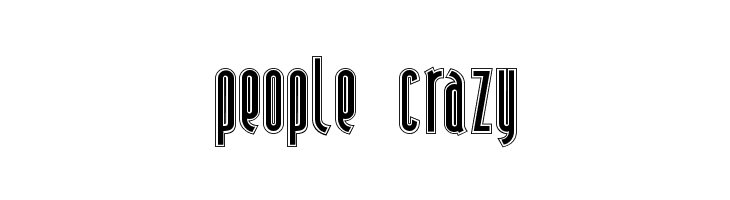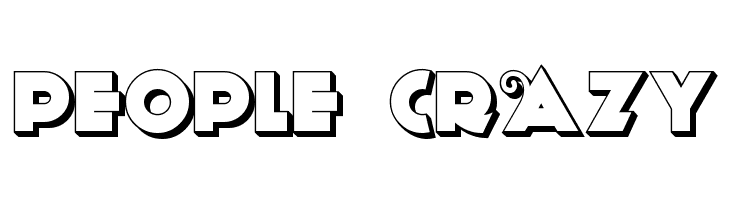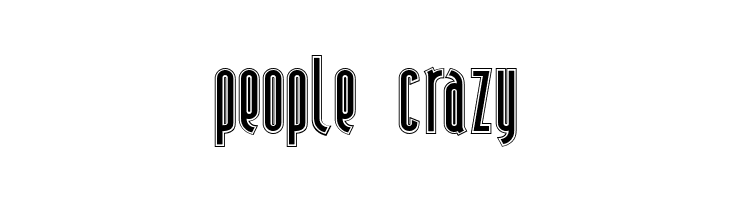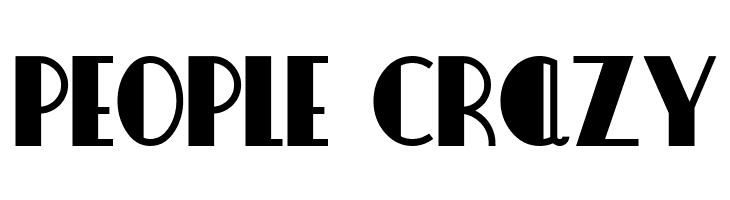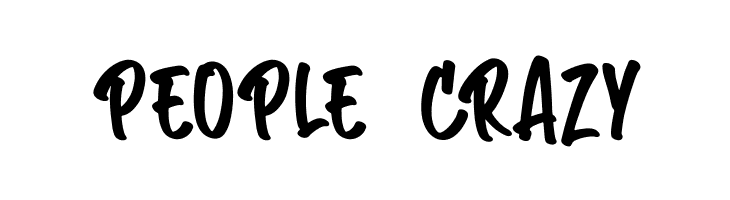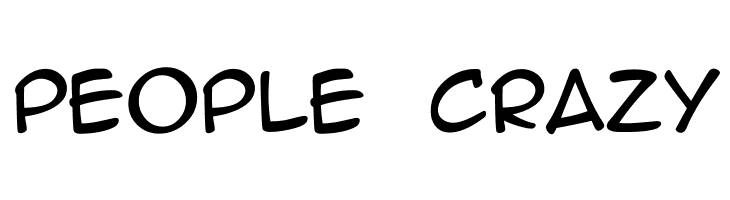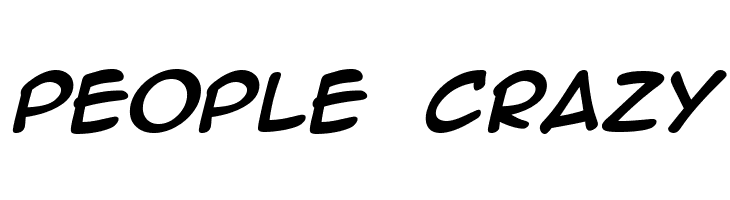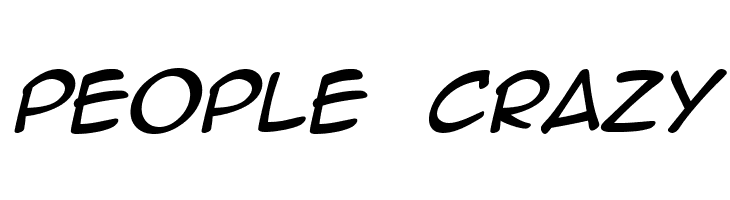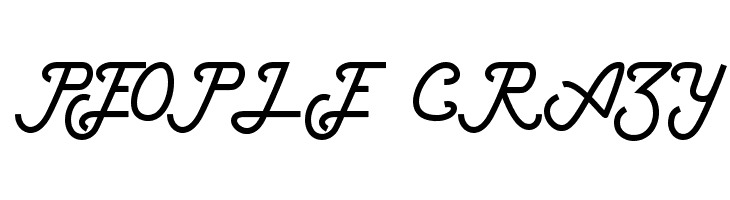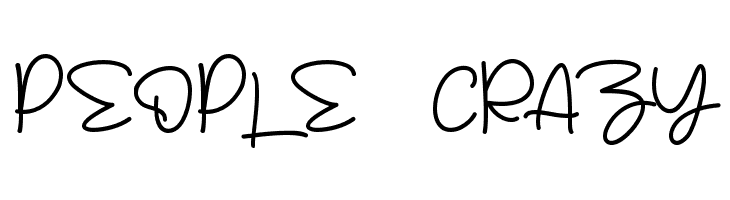
• Anagram Shadow NF
A bold, geometric font with a three-dimensional shadow effect.
• AnagramNFShadow
A bold, geometric font with a playful shadow effect.
• Anastasia
A playful, handwritten script font with interconnected characters.
• Anchor Steam NF
A bold, Art Deco-inspired font with geometric shapes and sharp angles.
• Anchorless Echo
A bold, distressed font with a grunge, hand-drawn style.
• Anderson Dings 1
A collection of retro-futuristic logos and emblems with bold, geometric designs.
• Anderson Fireball XL5 Shadow
A bold, playful font with a shadow effect for added depth.
• Anderson Silva
A dynamic blend of cursive elegance and bold modernity.
• Anderson The Secret Service
A bold, dynamic font with sharp angles and smooth curves.
• Andiron Outline NF
A bold, outlined serif font with a modern twist, perfect for eye-catching headlines.
• AndironOutlineNF
A bold, outlined font with a modern, geometric style.
• AndromedaSL
• Angel Cry
A playful, handwritten cursive font with a smooth and flowing style.
• Angela
A playful handwritten font with rounded edges and smooth curves.
• Angela's Handwriting
Casual handwritten font with a friendly style.
• angelib
A playful, casual handwritten font with smooth, rounded strokes.
• Angelisa